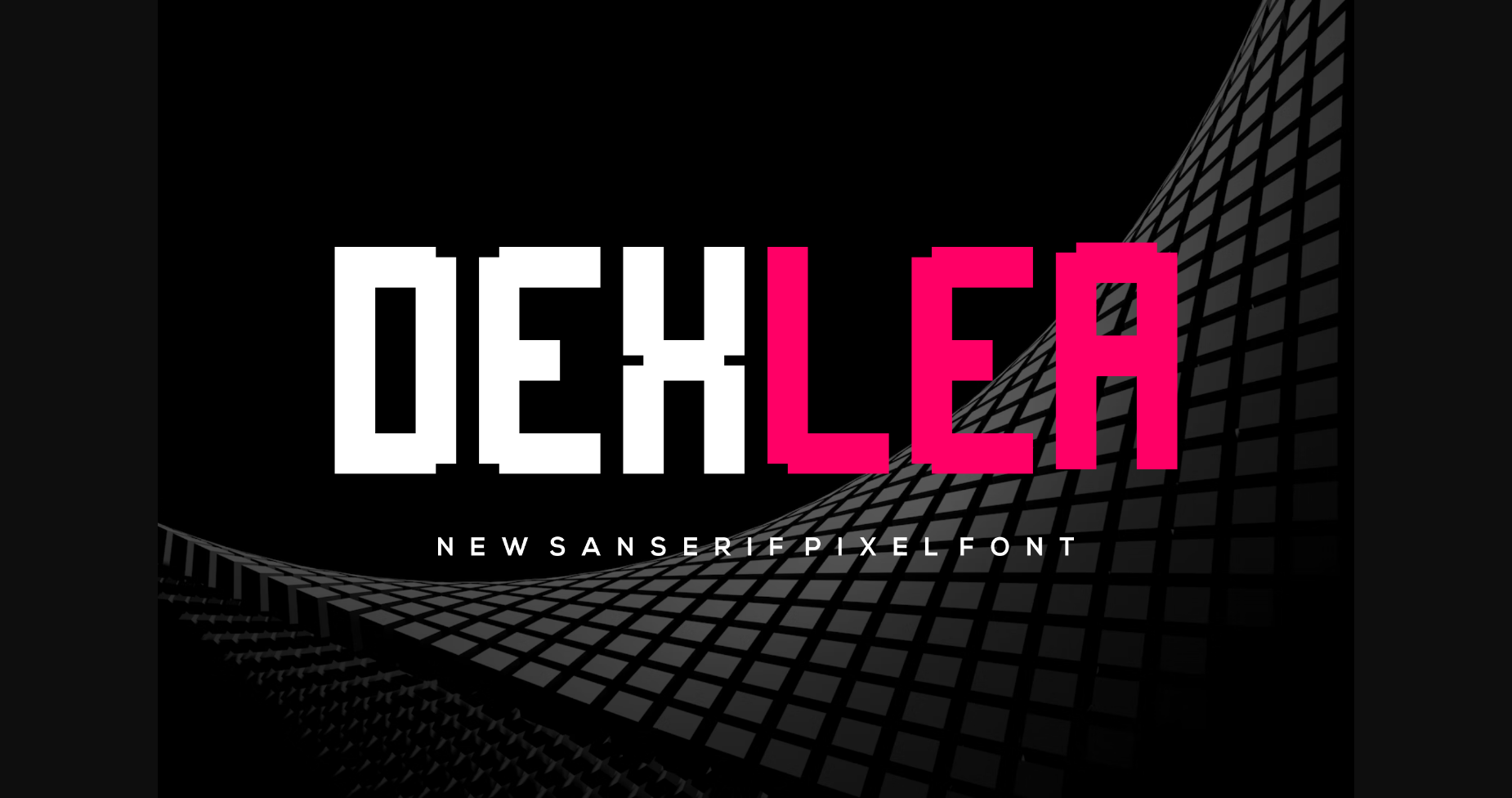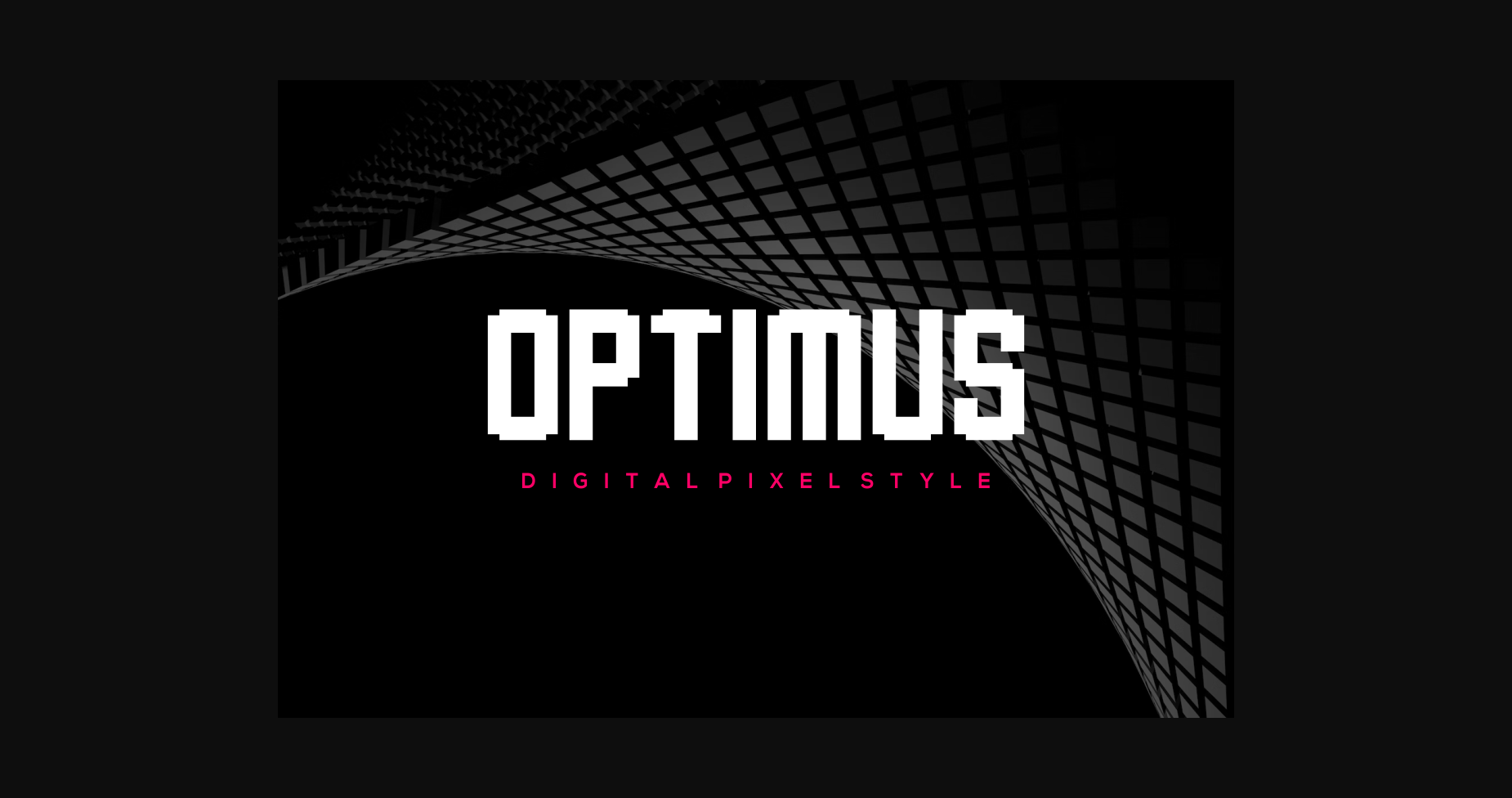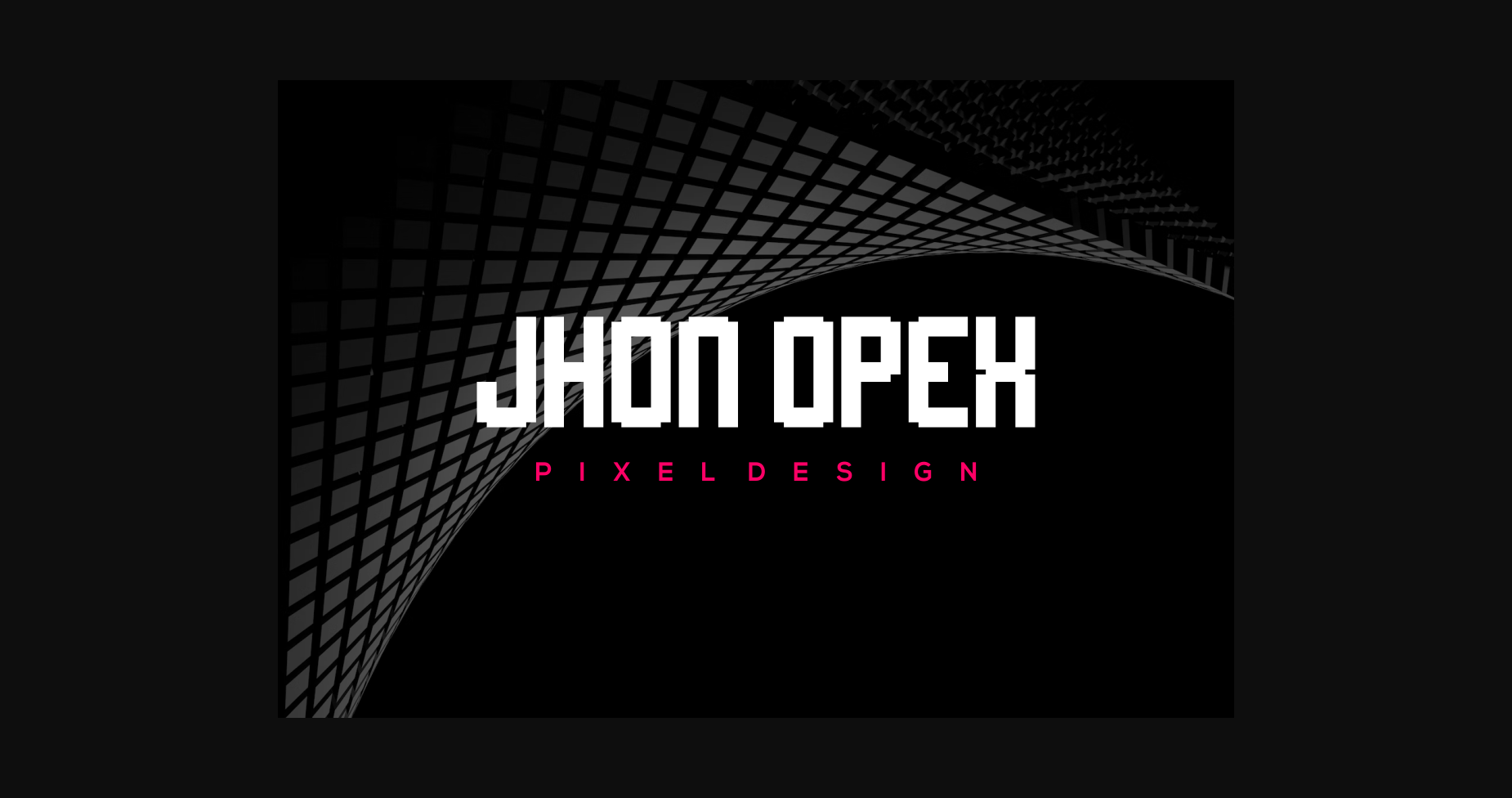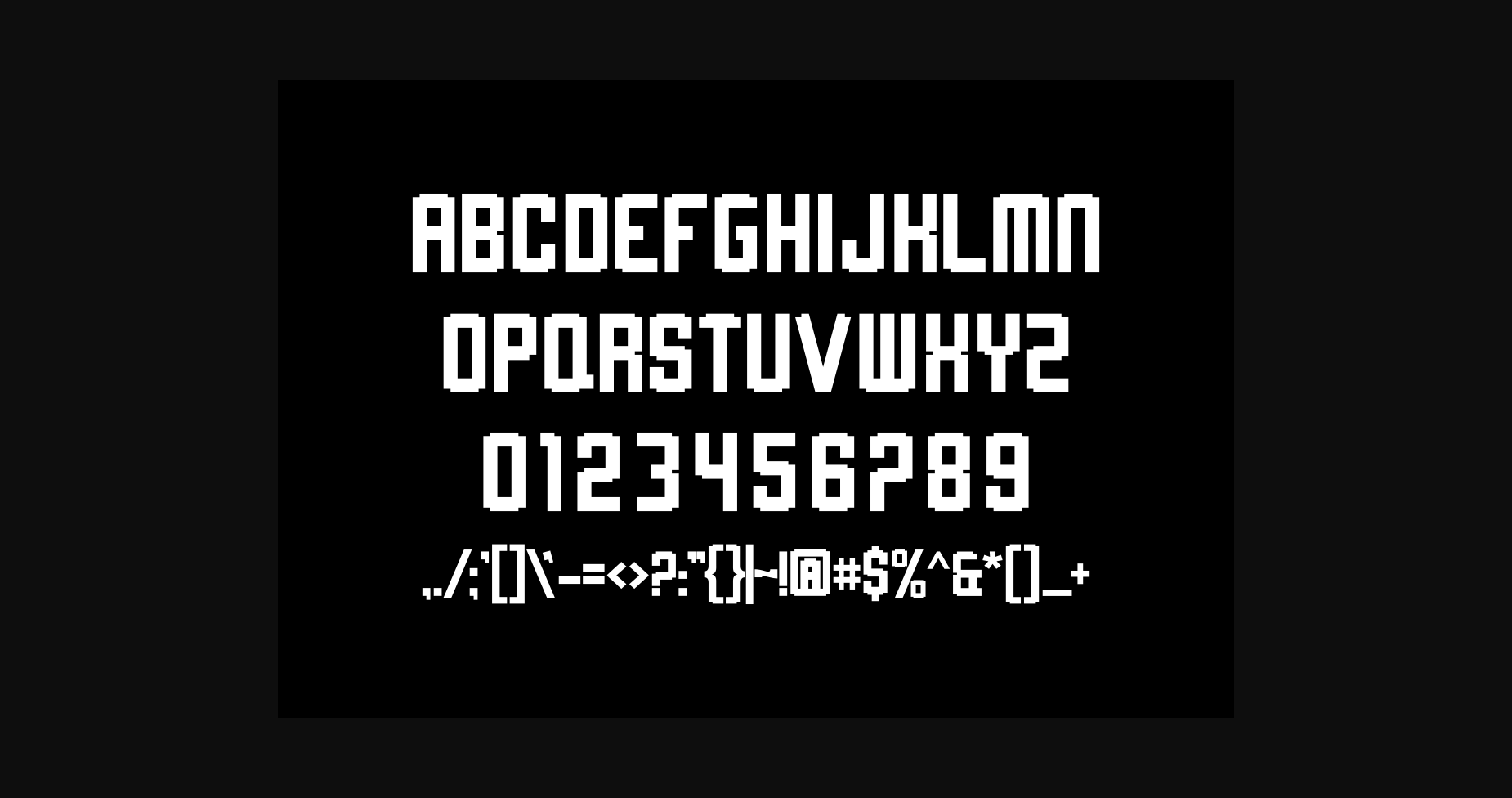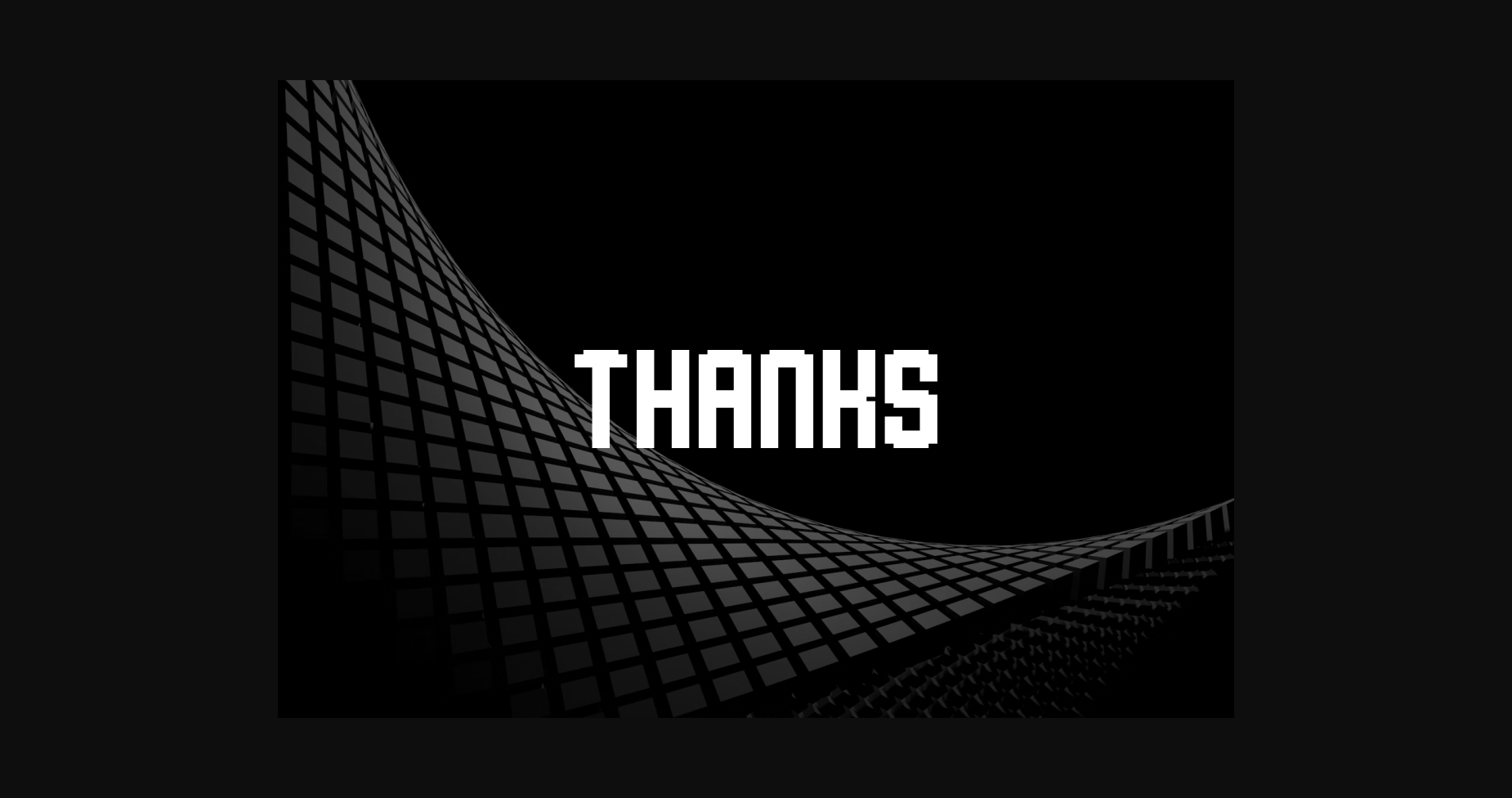
Dexlea Font
About Dexlea Font
Dexlea is a cool, incredibly attractive, and new display font. Add it to each of your party invitations, swimming gathering, or pretty much any design that requires a touch of youth and joy.